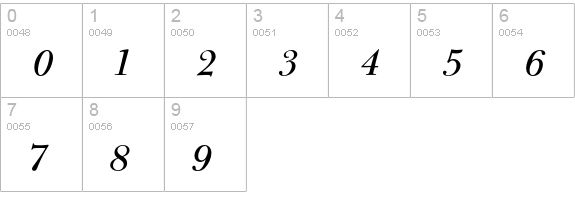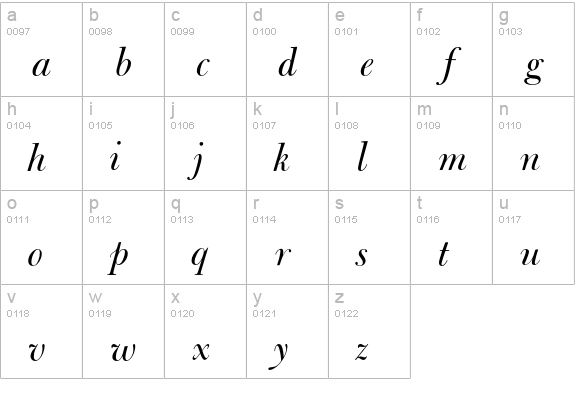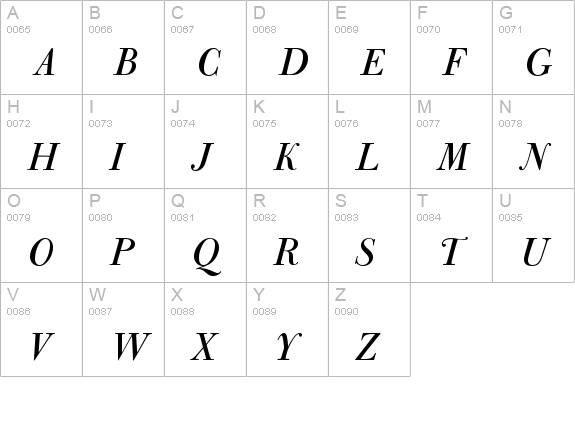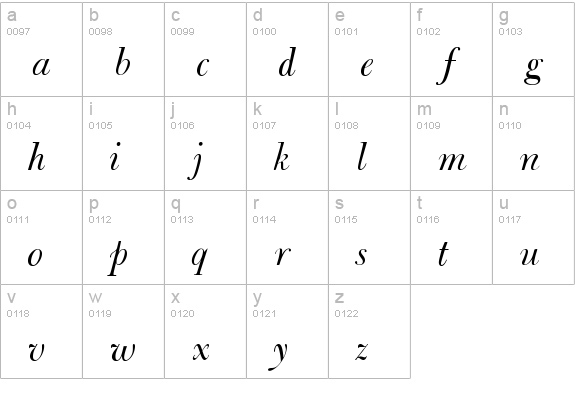
Bulmer-Italic Font Details
Bulmer-Italic is a distinctive, italic variant in the Bulmer typeface family \xE2\x80\x94 well suited to design and typography projects.
Bulmer-Italic is a graceful and elegant font that exudes sophistication and charm. Its slanted letterforms add a touch of style and flair to any design project. This font is perfect for conveying a sense of refinement and class. With its classic serif style and smooth curves, Bulmer-Italic is versatile and can be used for a wide range of applications, from invitations to branding to editorial design. The best part is that Bulmer-Italic is available for free download at FontsMarket.com. This means you can easily access this beautiful font and use it in your projects without any cost. Don't miss out on the opportunity to enhance your designs with the timeless beauty of Bulmer-Italic. Download it today and add a touch of sophistication to your work!